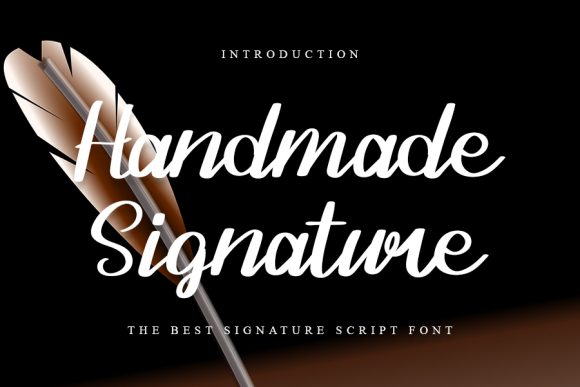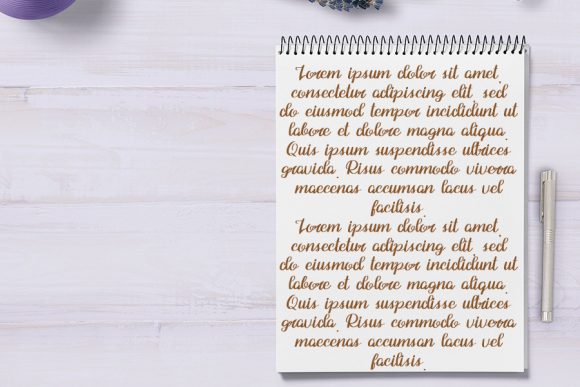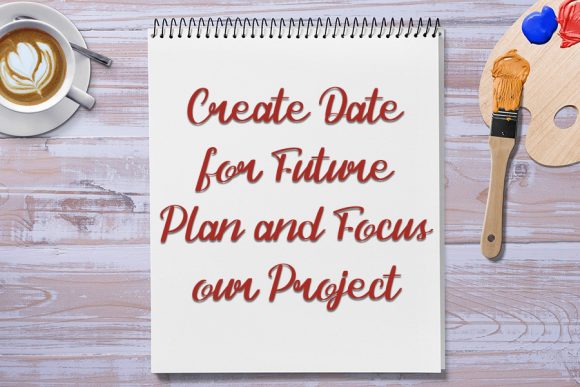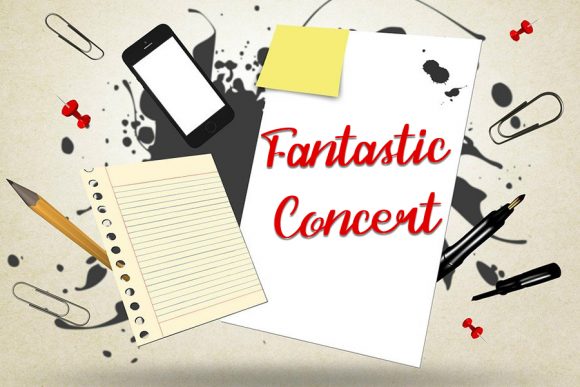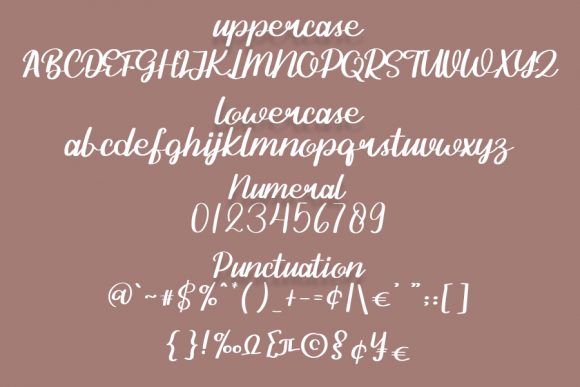
Handmade Signature Font
About Handmade Signature Font
Handmade Signature is a cute and charming handwritten font. Whimsical and well balanced, this font will brighten up each of your designs. Add it confidently to your projects, and you will love the results.